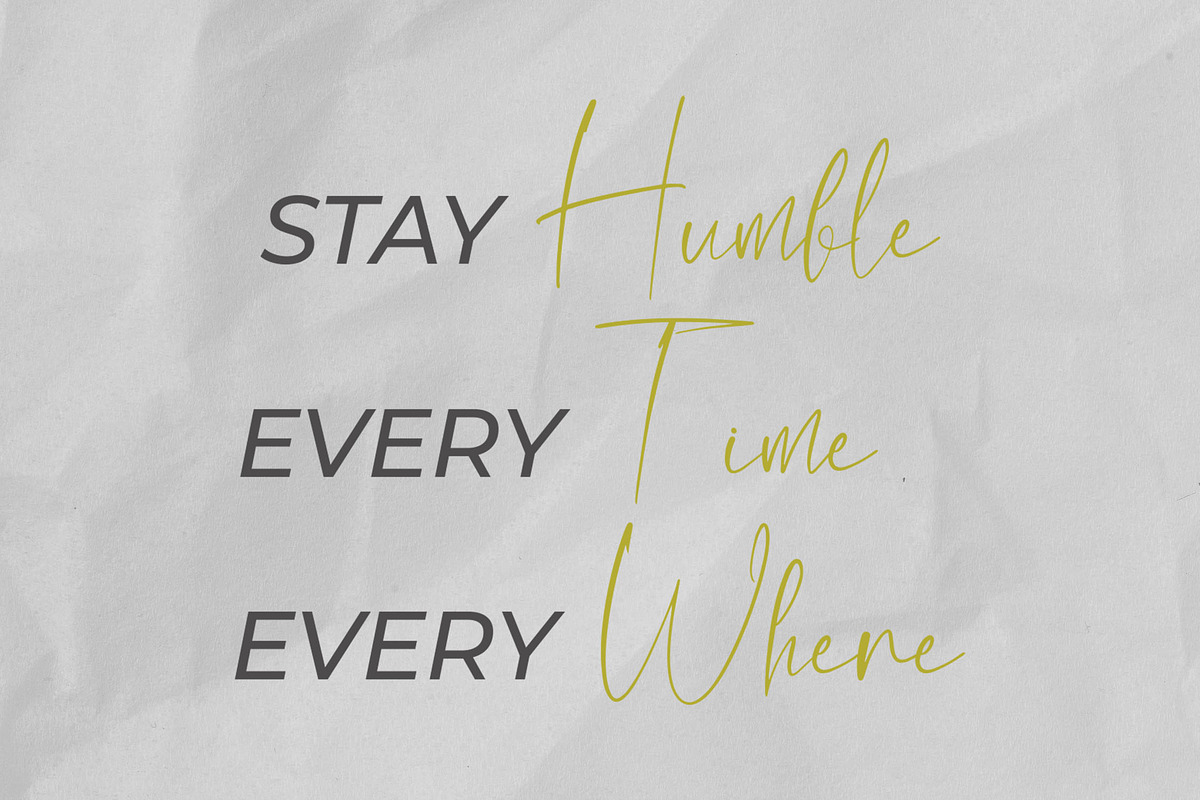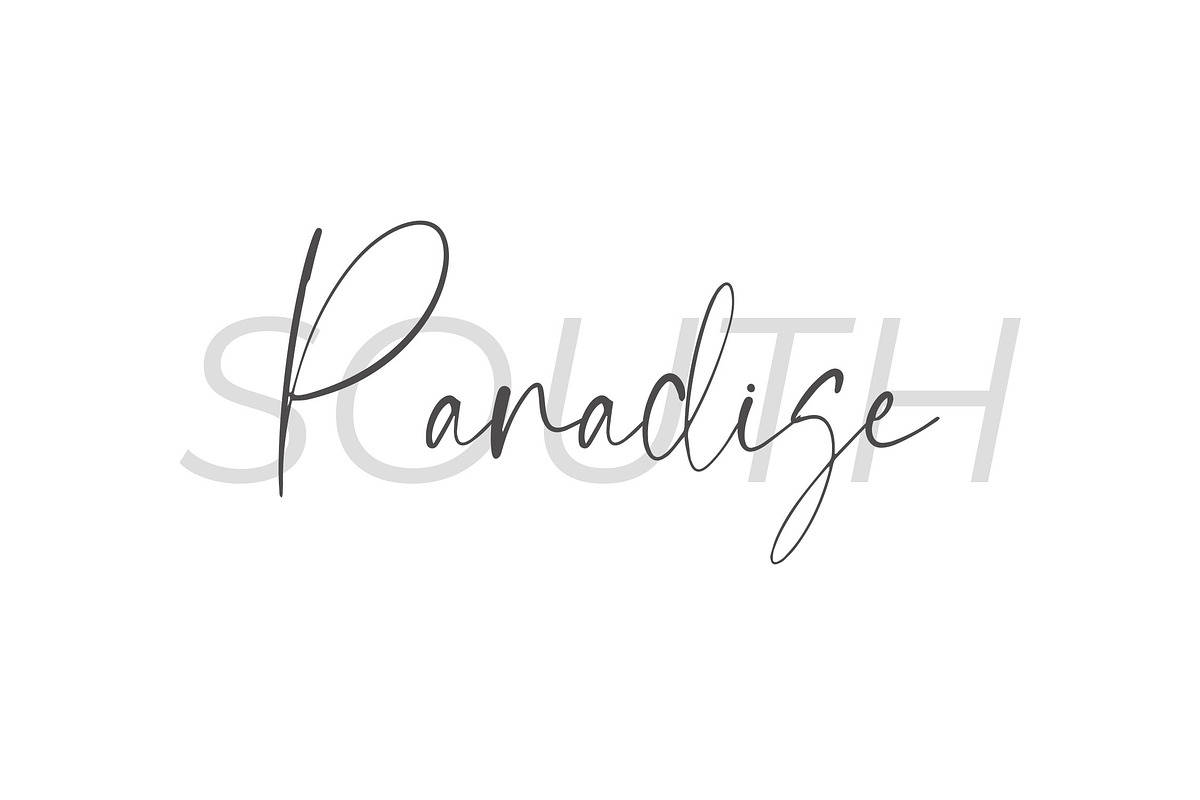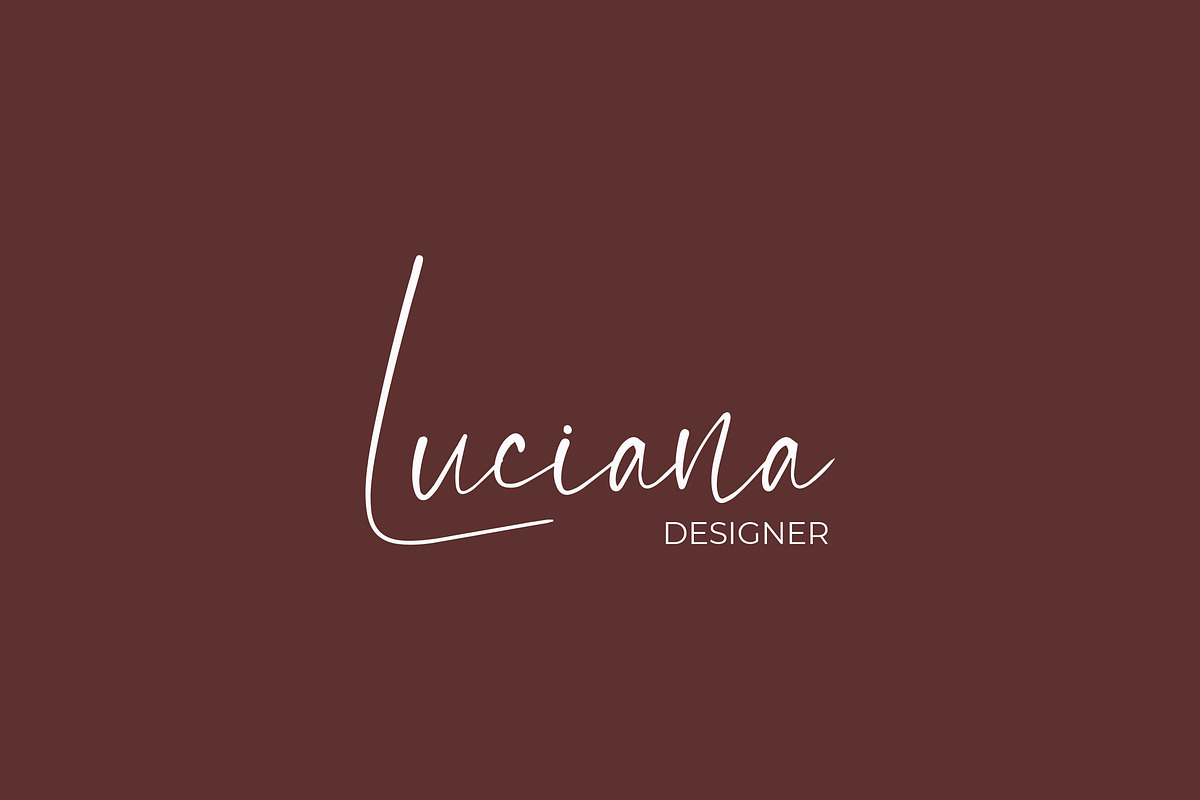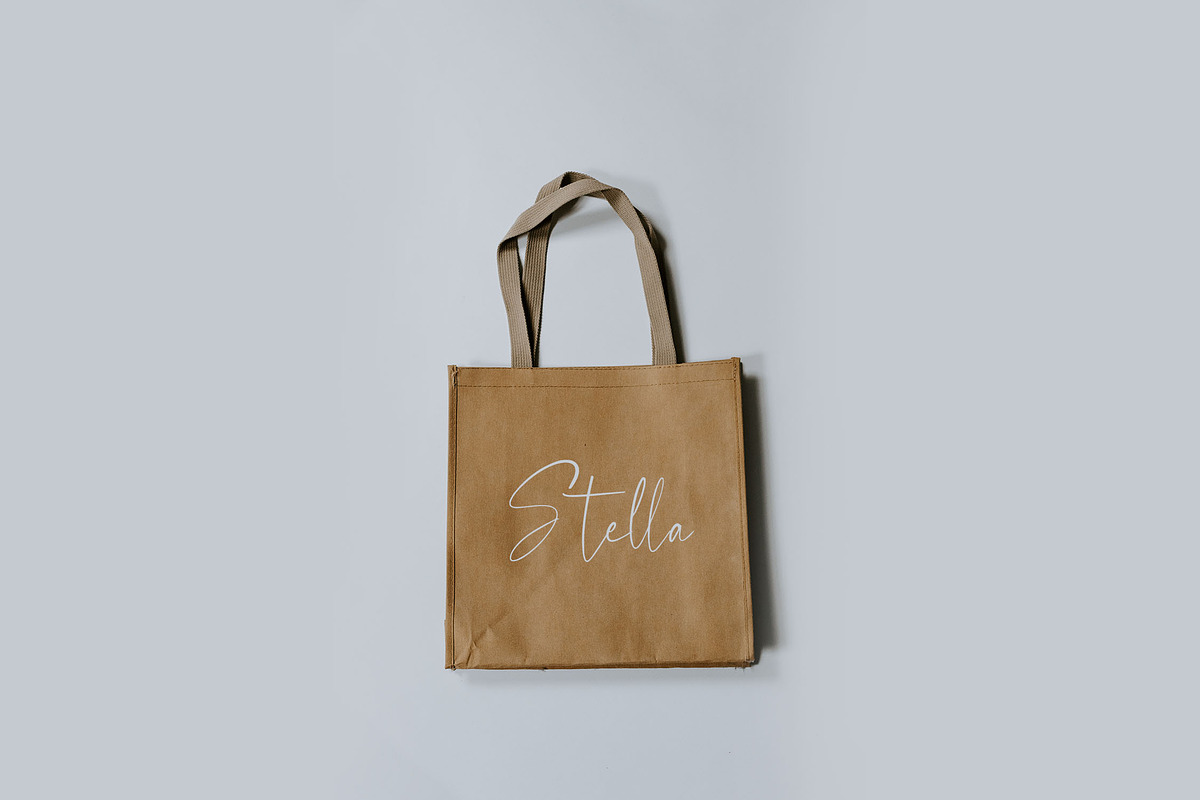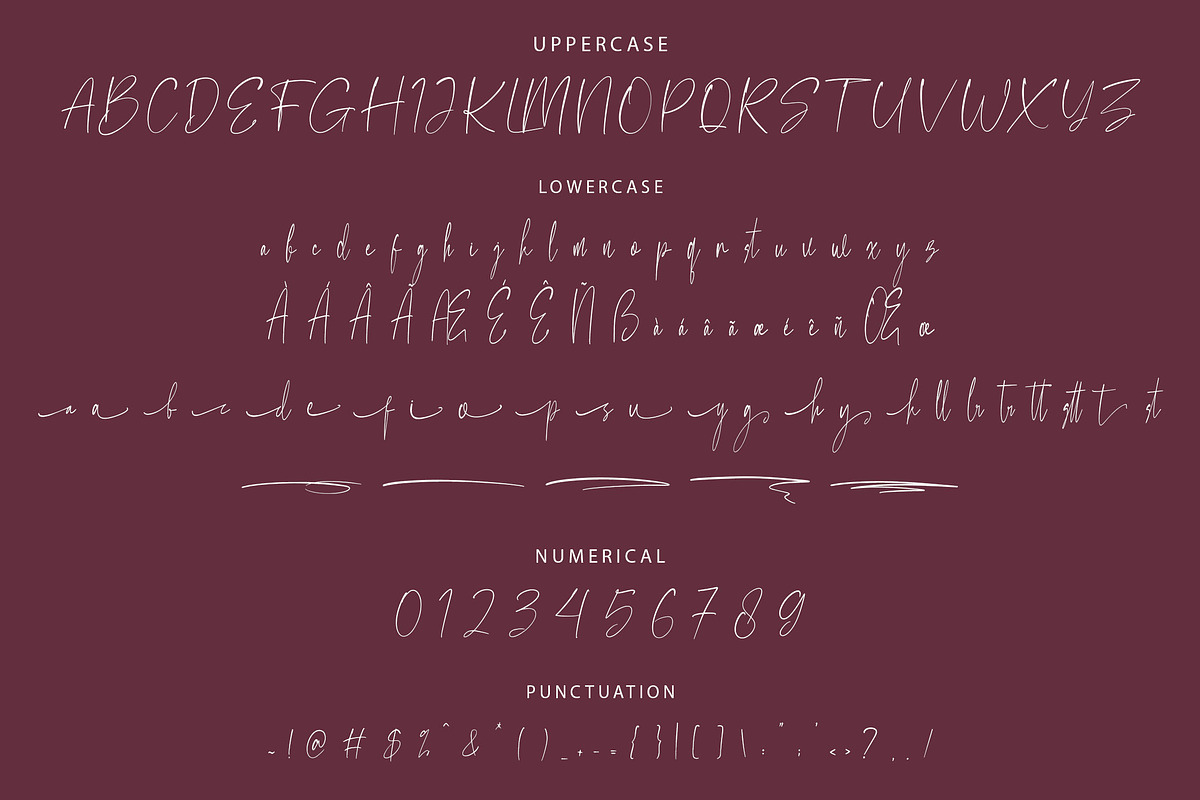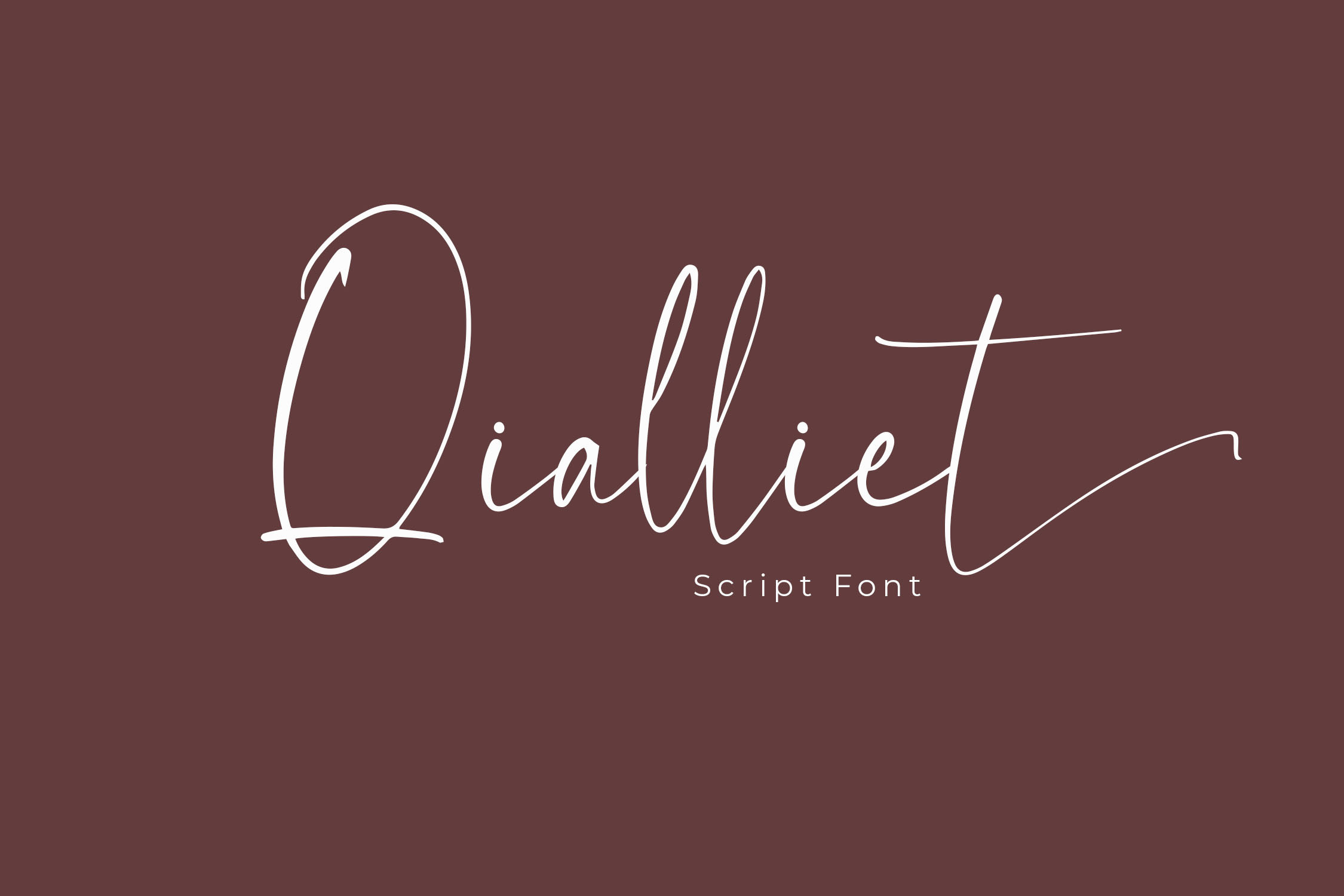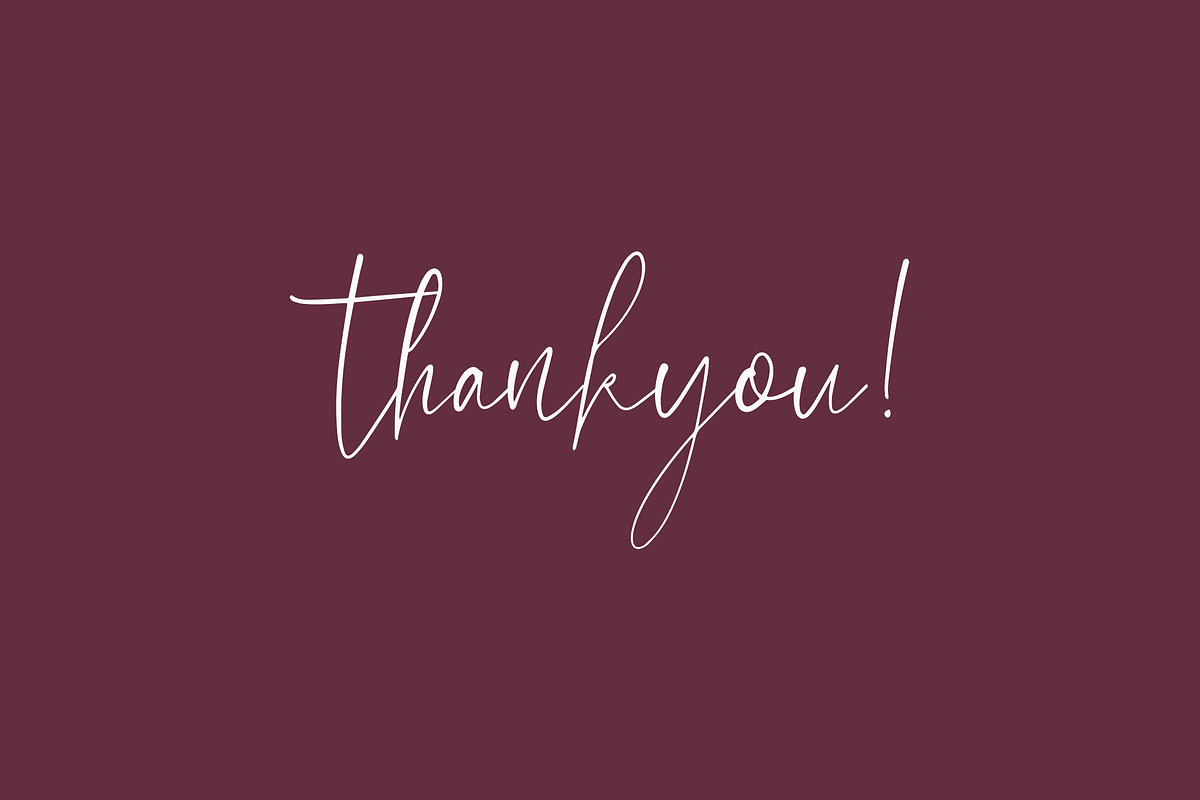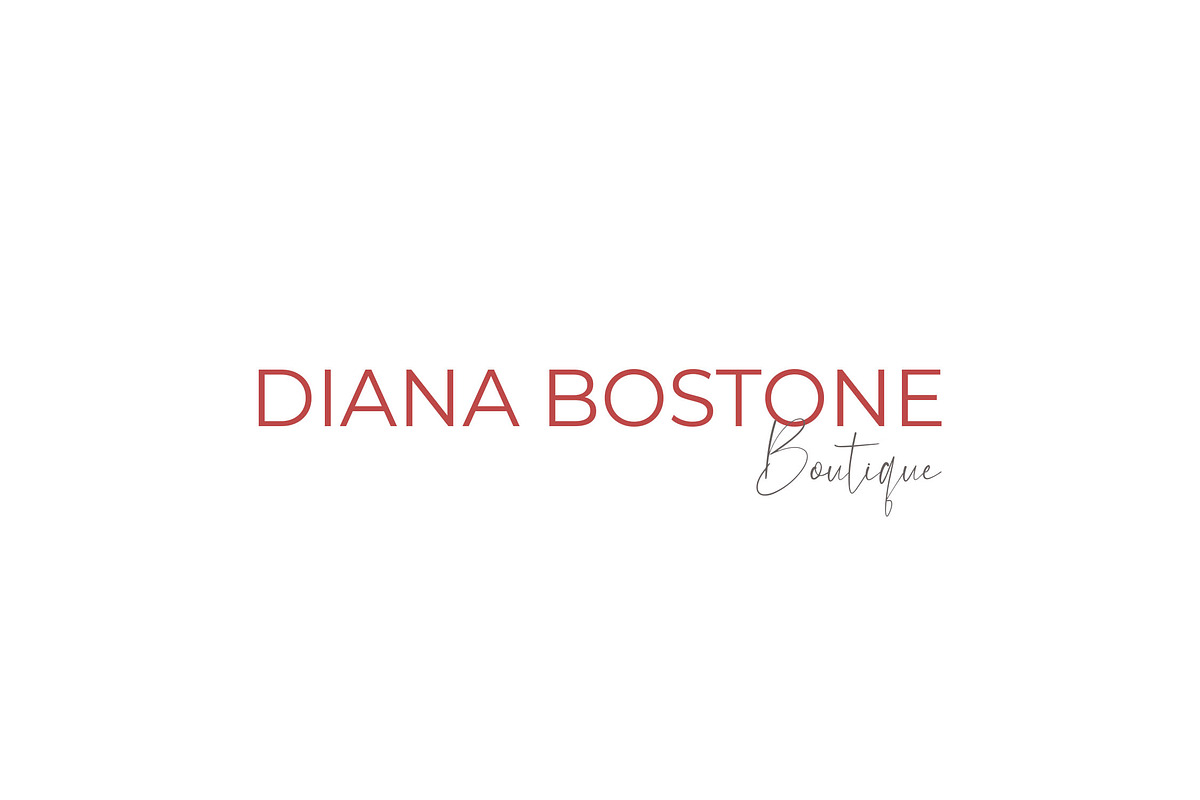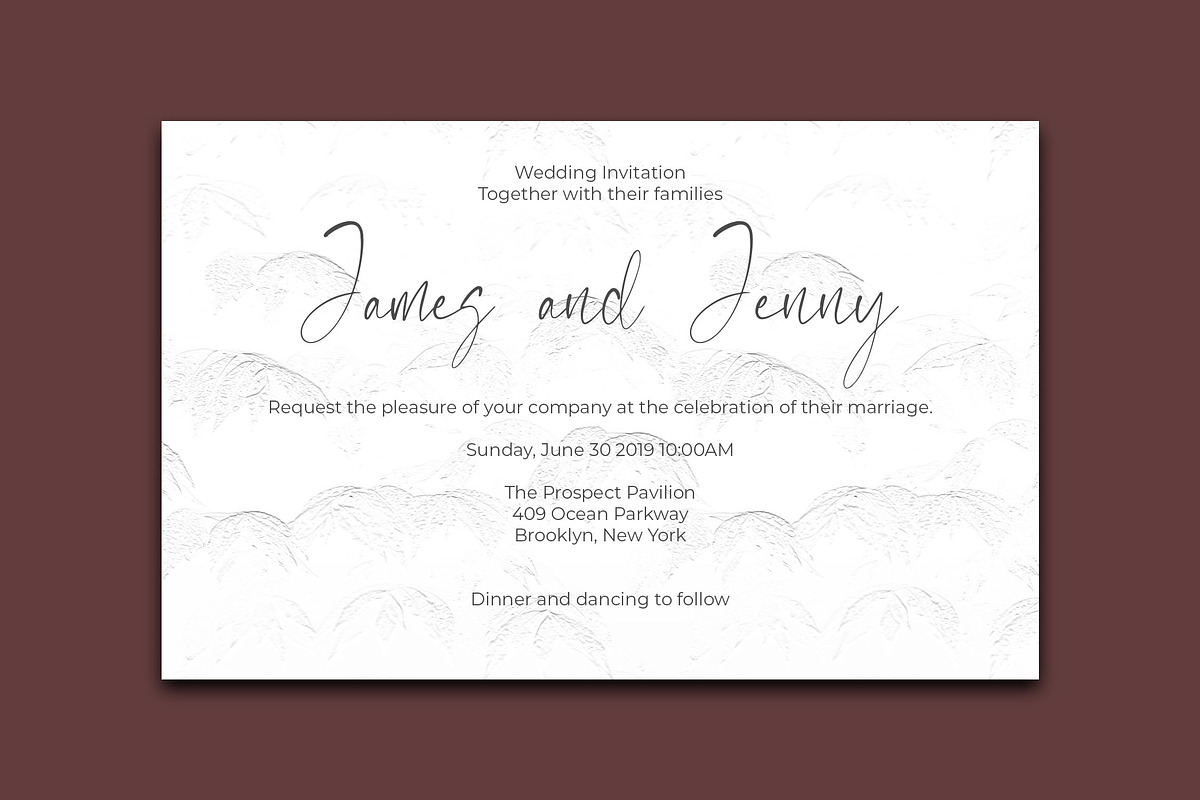
Qialliet Minimalist Script Font
Qialliet is a minimalist script font designed with elegance and simplicity in mind. Its unique character shapes bring a refined touch to any project, making it perfect for logos, branding, invitations, and more. Qialliet enhances the visual appeal of your designs, ensuring they stand out with style and sophistication.
- Ligatures: Smooth and connected letter combinations.
- Stylistic Alternates: Add versatility with alternate character options.
- Swashes: Embellish your text with elegant swirls.
- Multilingual Support: Suitable for various languages and alphabets.